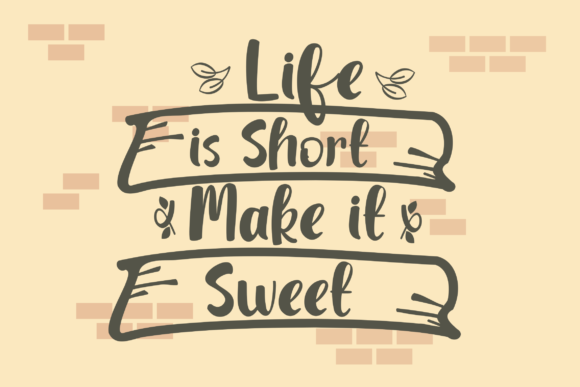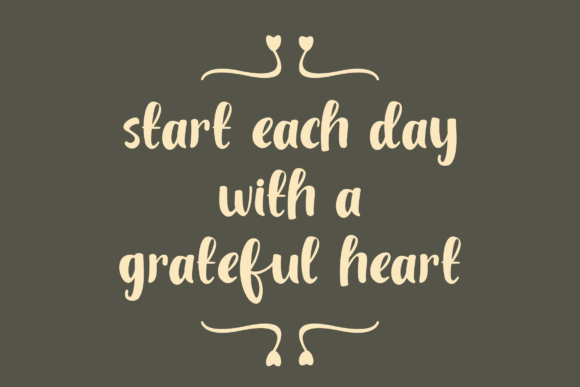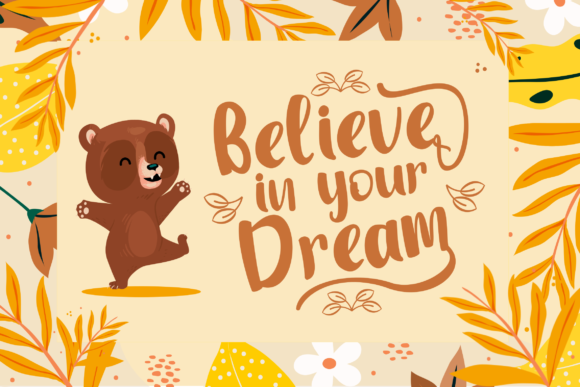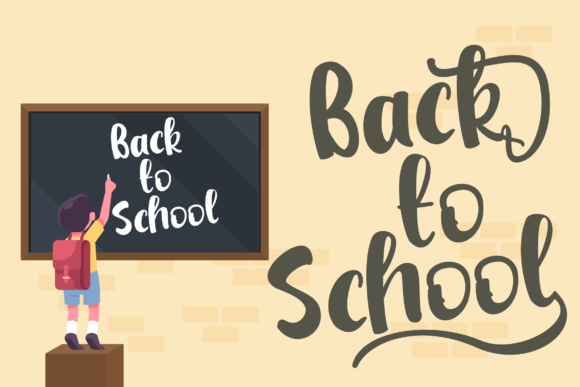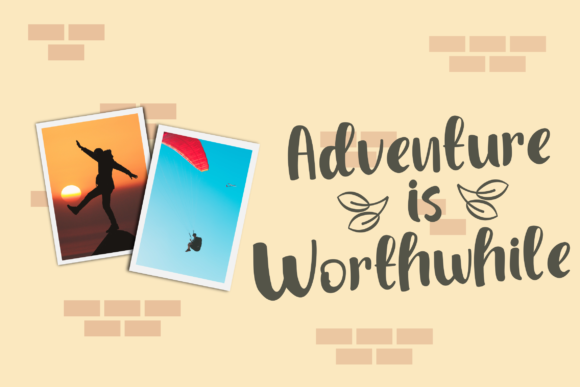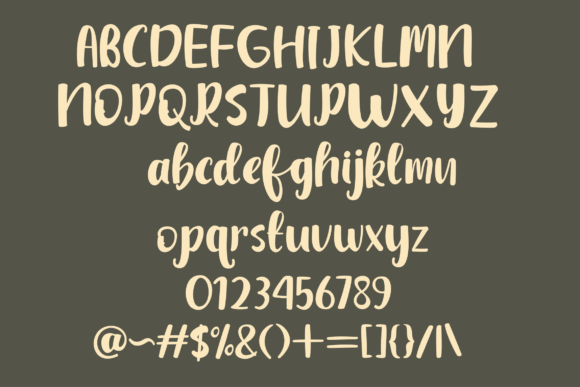
Introduction to Dream Road Font
Dream Road is a lovely handwritten font.
It has an elegant and modern look which can be used for logos, branding, invitations, stationary, wedding designs, social media posts, and every other design This font is PUA encoded which means you can access all of the glyphs and swashes with ease.